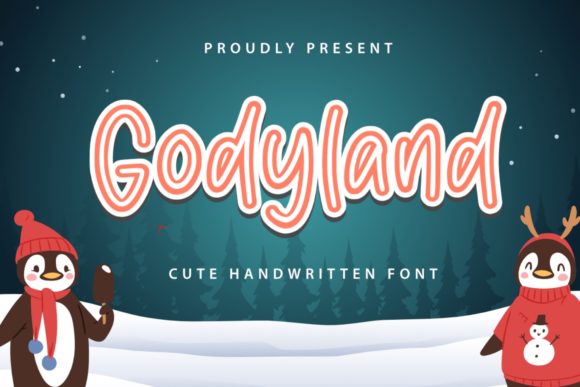
Godyland Font: Elevate Your Designs with a Playful, Bold, and Modern Display Font
In the world of typography, a font can make or break a design. A well-chosen font can elevate a project, making it stand out and leave a lasting impression. This is where Godyland Font comes in – a playful, bold, and neat display font that can level up each of your design ideas. In this article, we’ll dive into the features and benefits of Godyland Font, and explore how it can enhance your designs.
What is Godyland Font?
Godyland Font is a modern display font that exudes playfulness and boldness. Its smooth and sleek design makes it perfect for a wide range of projects, from branding and advertising to packaging and digital media. The font’s unique blend of modernity and elegance sets it apart from other fonts, making it an excellent choice for designers looking to add a touch of sophistication to their work.
Key Features of Godyland Font
- Playful and Bold: Godyland Font is designed to make a statement. Its bold and playful design makes it perfect for headlines, titles, and other display text.
- Smooth and Modern: The font’s smooth and modern design ensures that it looks great on both digital and print materials.
- Beautiful and Well-Balanced Characters: Godyland Font features beautiful and well-balanced characters that make it easy to read and understand.
- Wide Pool of Designs: The font’s versatility makes it suitable for a wide range of designs, from minimalist to complex and ornate.
Benefits of Using Godyland Font
So, why should you choose Godyland Font for your next project? Here are just a few benefits of using this amazing display font:
1. Enhances Readability
Godyland Font is designed to be easy to read, even in large blocks of text. Its clear and well-balanced characters make it perfect for body text, captions, and other written content.
2. Adds Visual Interest
Godyland Font’s playful and bold design adds visual interest to any project. Its unique shape and modern style make it stand out from other fonts, ensuring that your design gets noticed.
3. Versatile and Flexible
Godyland Font is incredibly versatile and flexible. It can be used for a wide range of projects, from branding and advertising to packaging and digital media.
4. Easy to Pair with Other Fonts
Godyland Font is designed to be easy to pair with other fonts. Its clean and modern design makes it a great match for a wide range of font combinations.
How to Use Godyland Font
1. Use it as a Display Font
Godyland Font is perfect for display text, such as headlines, titles, and captions. Use it to add visual interest and emphasis to your design.
2. Pair it with Other Fonts
Godyland Font pairs well with a wide range of fonts. Try pairing it with a clean sans-serif font for body text, or a bold script font for added emphasis.
3. Experiment with Different Sizes and Colors
Godyland Font looks great in a variety of sizes and colors. Experiment with different sizes and colors to find the perfect combination for your design.